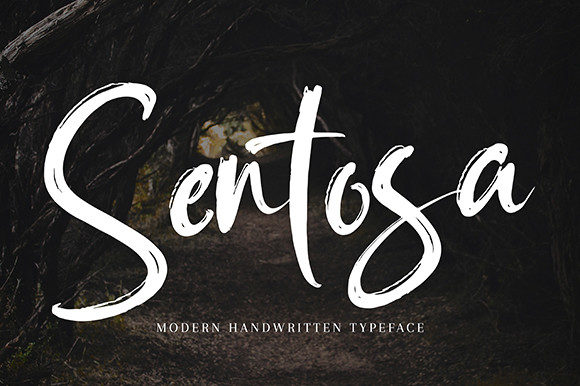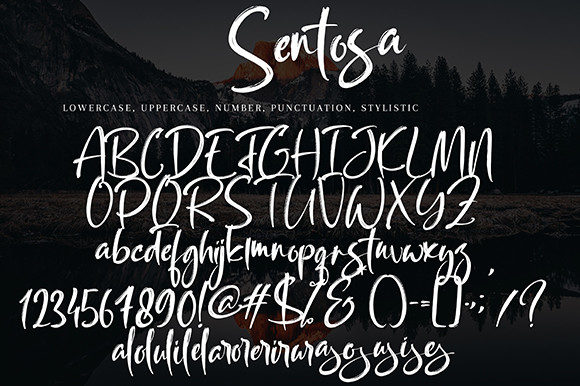
About Sentosa Font
Sentosa is a brushed script font carefully created with a stylish touch. This font is PUA encoded which means you can access all of the amazing glyphs and ligatures with ease!